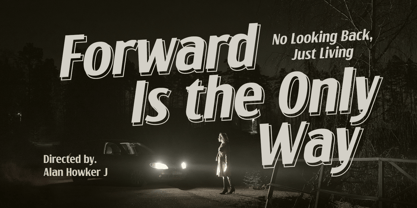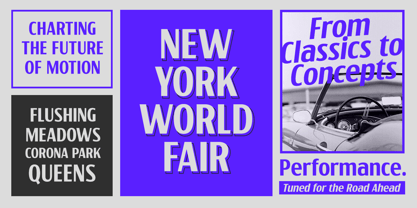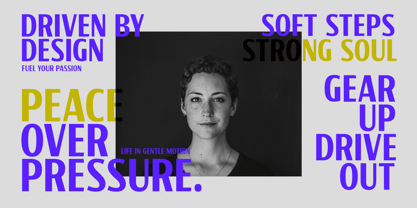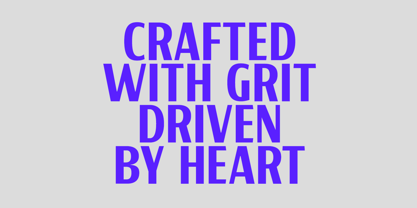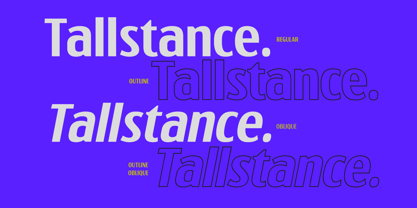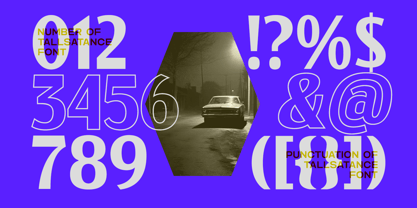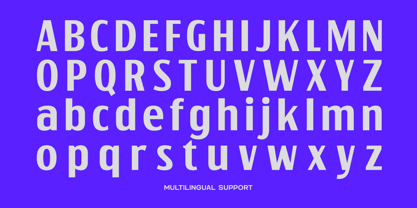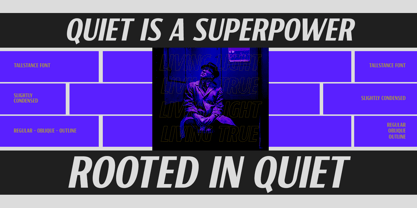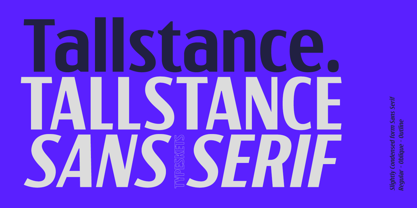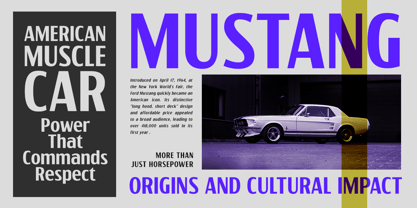
Tallstance
by Typeskets
The Tallstance Font Family was designed by Sahrul Hidayat and published by Typeskets. Tallstance contains 4 styles and family package options.
Tallstance is a slightly condensed sans serif that combines clarity, confidence, and modern aesthetics. Its tall proportions and minimal geometric construction make it ideal for designers who need a typeface that is both space-saving and visually striking. Crafted with clean shapes and subtle tension, Tallstance delivers excellent readability while maintaining a bold presence across layouts. The family includes Regular, Oblique, and Outline styles, offering versatile typographic options for branding systems, editorial compositions, titles, digital interfaces, and promotional materials. Tallstance excels in contemporary design environments—where typography needs to look sharp, efficient, and refined. Whether you’re creating bold headlines, sleek branding, or dynamic poster layouts, Tallstance provides the precision and personality needed to elevate your visual communication. A dependable sans serif with a modern attitude, built for designers who value clarity, structure, and style.
Designers: Sahrul Hidayat
Publisher: Typeskets
Foundry: Typeskets
Design Owner: Typeskets